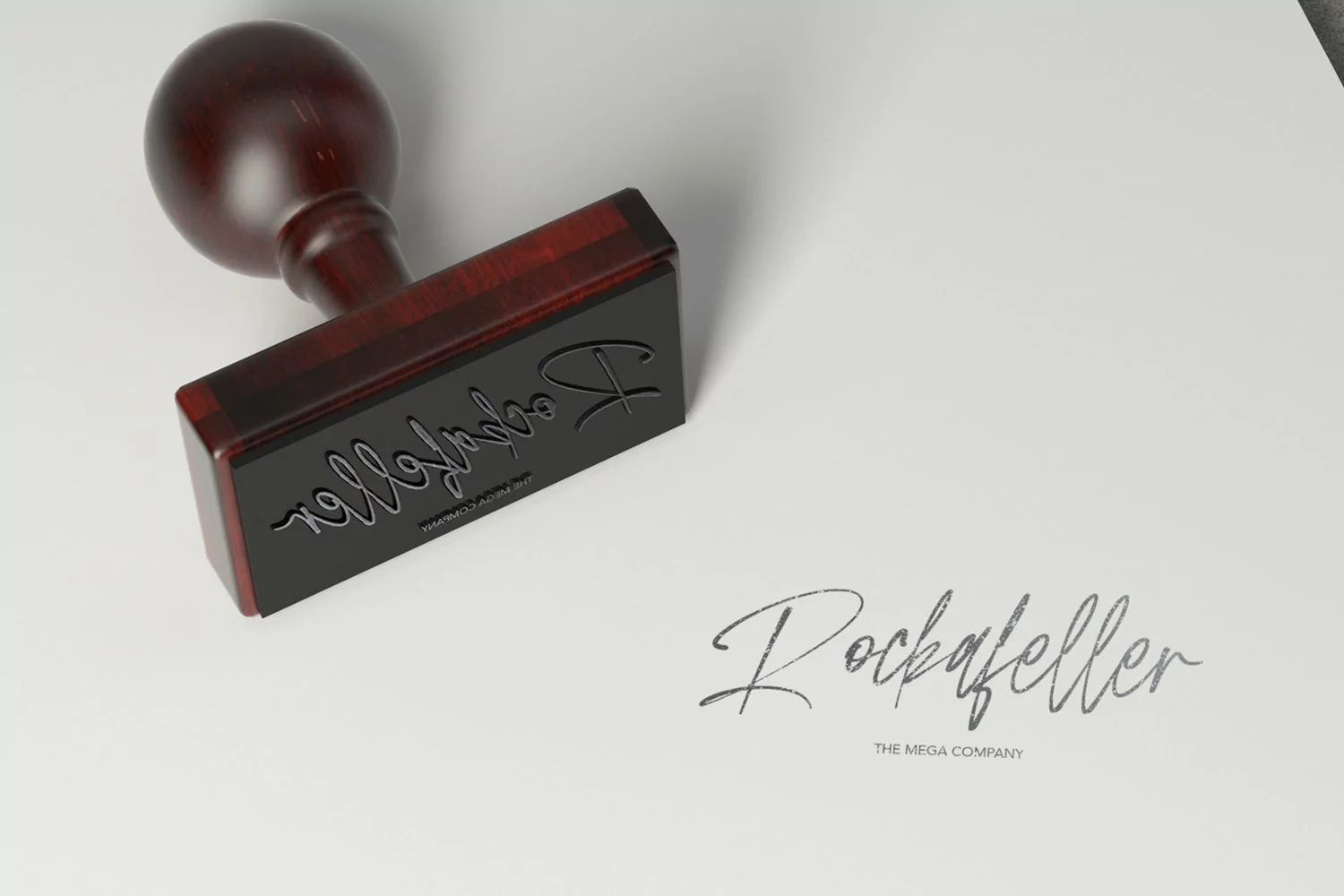
Flinckstone Ballpoint Stroke Signature Font
Flinckstone Ballpoint Stroke Signature Font is beautiful script made by love. Flinckstone Script with natural handwriting touch is suitable for you who needs a typeface for Headline, Apparel, Invitation, Branding, Wedding, Logo Design, Lettering, Logotype, Clothing, Poster, Magazine and other design project.